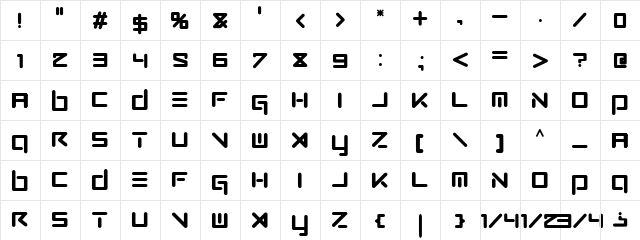
GOZBER GOZBER
Design Context for GOZBER Typeface
GOZBER is a composed and adaptable typeface that performs quietly and consistently across a wide range of design contexts.
Pro Tip: Pair GOZBER with a font of contrasting weight or personality to build a more expressive typographic hierarchy.